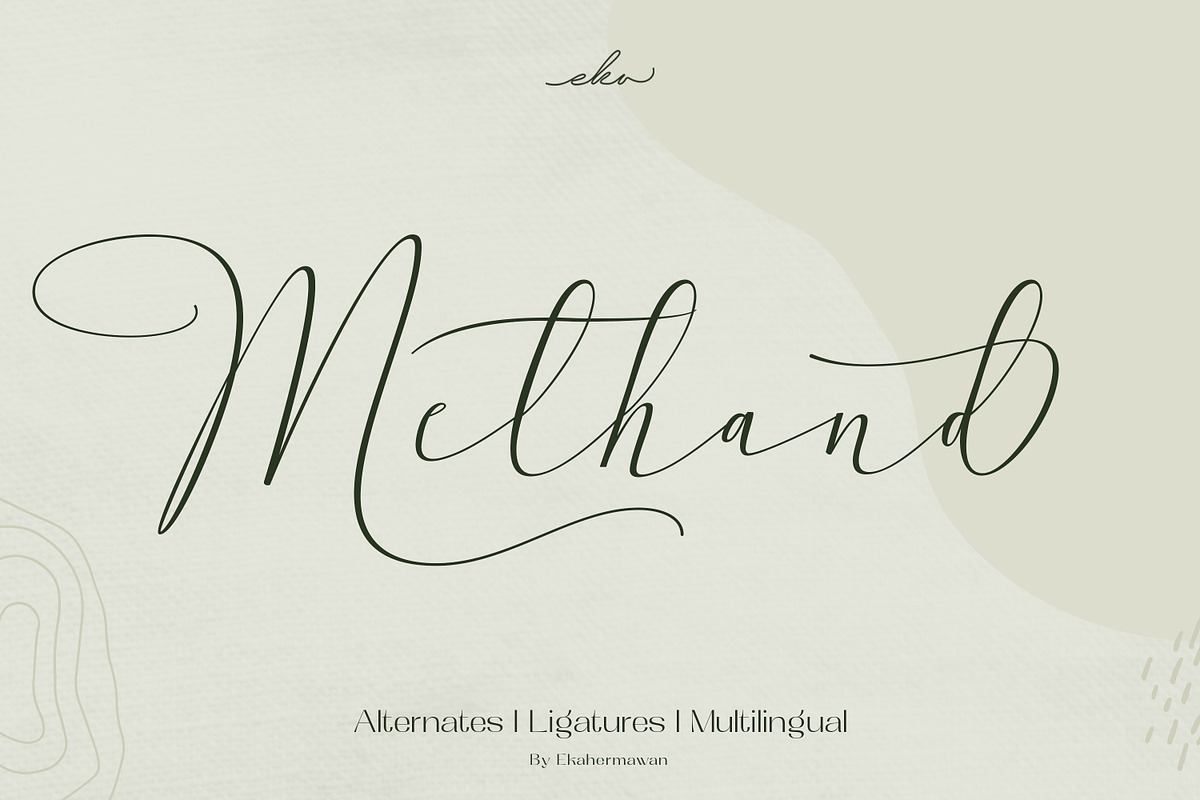
Methand - Script Font Free Download is a modern and stylish handwritten script font that blends elegance with a touch of attitude. Featuring fluid strokes, expressive curves, and a natural brush pen texture, Methand is perfect for branding, fashion lookbooks, logo design, wedding invitations, social media posts, and creative packaging.
Its bold and confident flow makes Methand ideal for headlines or signature-style designs that need to stand out with personality and flair. The font includes beautiful ligatures and alternates to add that perfect custom feel.